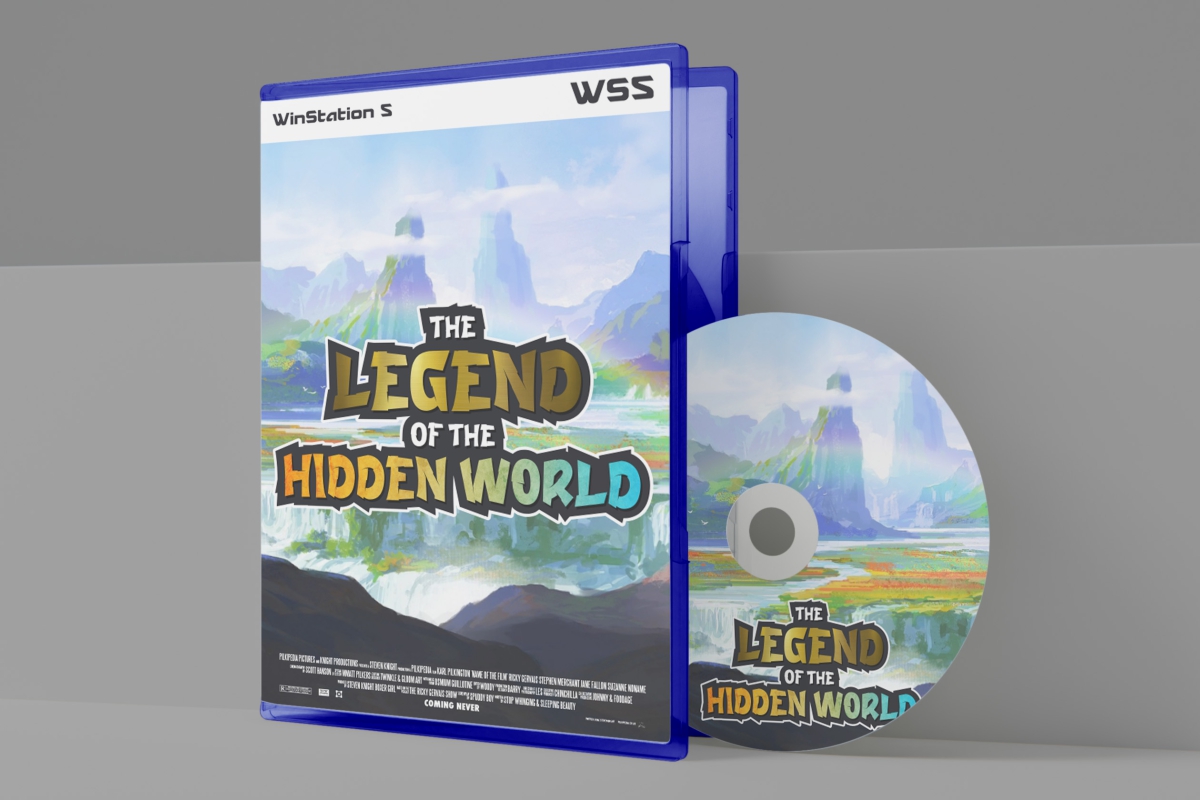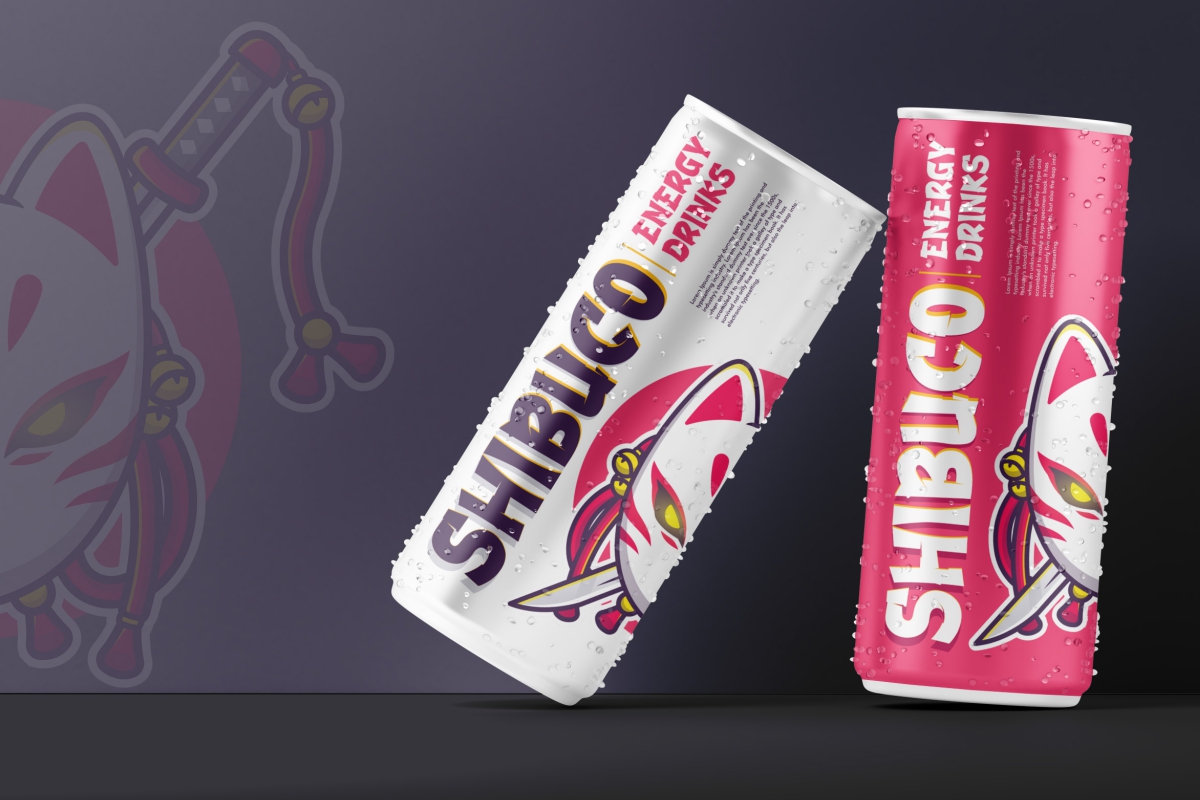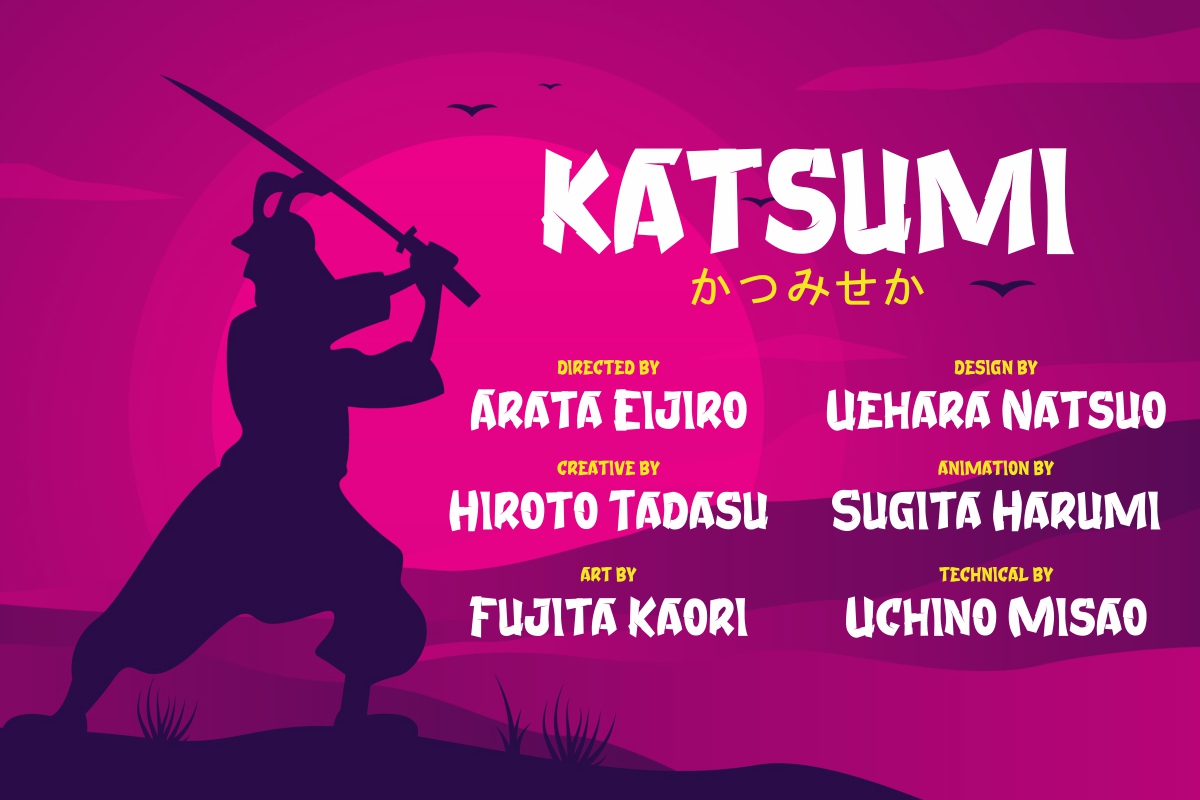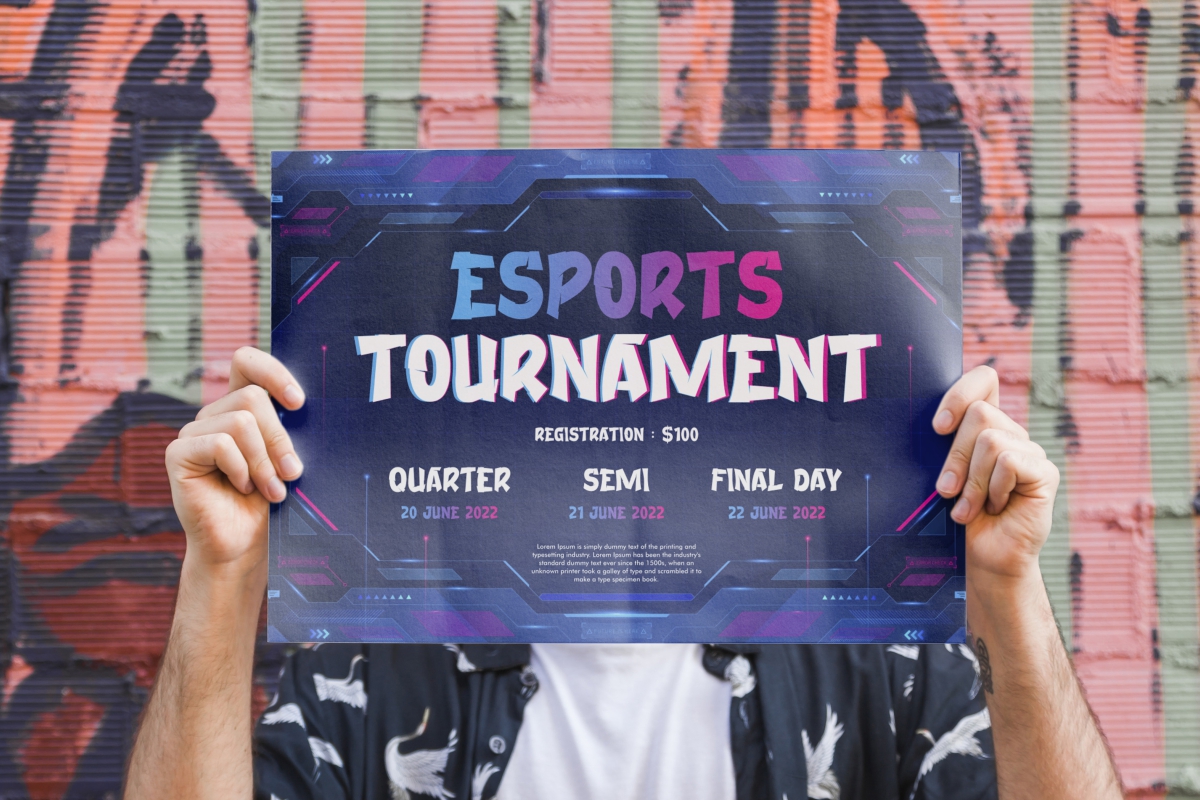
Game Online Font
Game Online Display Font
This is a fun display font with gaming style created by NoahType. This font has a unique shape that adds a cool look to your amazing projects. It will be suitable for many industry like cartoon, comic, energy drinks, fight, game, movie, musician, publishing, printing, sports, and many more!
Game Online Font includes set of All Caps Basic Characters, Numerals and Punctuation to create an impressive look and amaze you! This font will be perfect for your projects that need a contemporary vibe such as blog headers, brand logo, compact disc design, headline, invitation, label, poster, product packaging design, quote, etc.